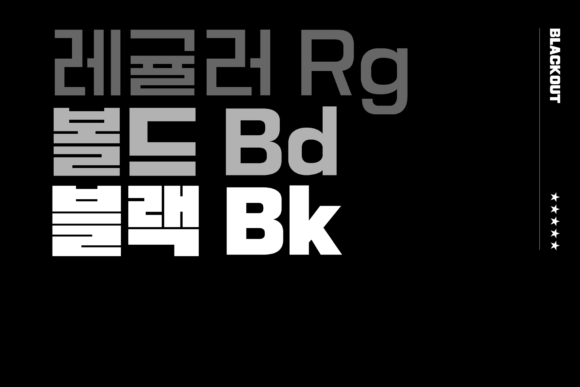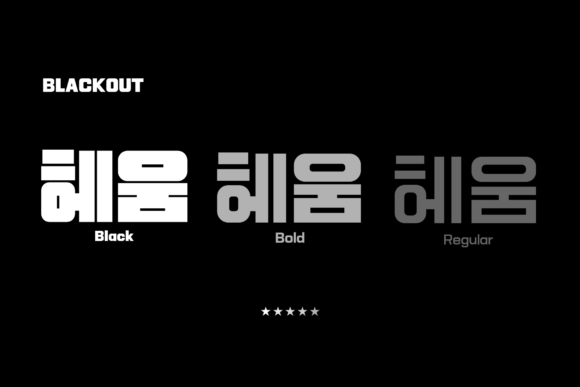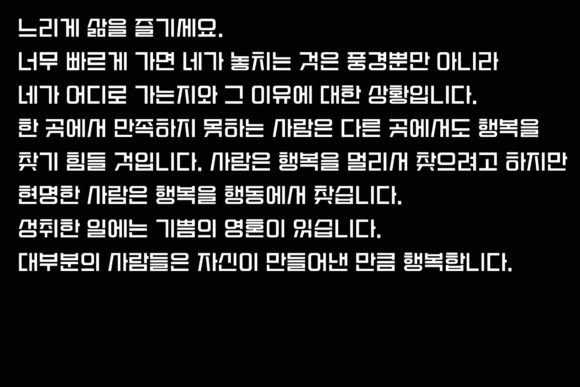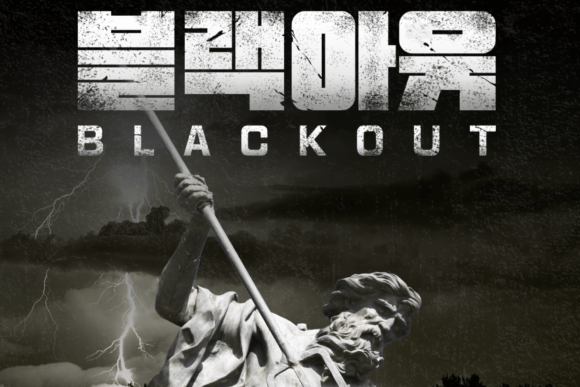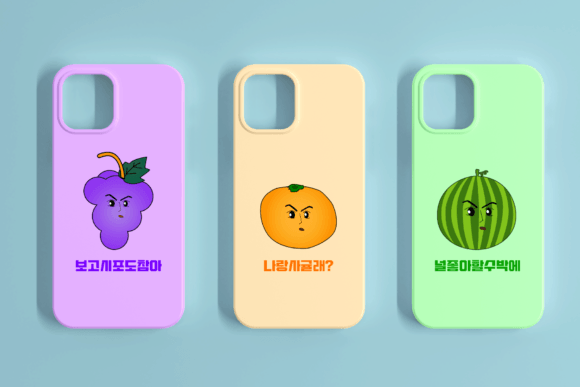
Introducing Blackout KR Font: A Unique Typeface for Modern Design
In the world of typography, a new font has emerged that’s making waves among designers and crafters alike. Say hello to Blackout KR Font, a typeface that’s perfect for titles and headings. This innovative font is characterized by its distinctive square-like structure, where letters seem to be trapped, with a constant and very narrow inner space. What sets Blackout KR apart is its versatility, comprising three types of family typefaces to increase usability. And the best part? It includes support for the Korean language.
The Design Behind Blackout KR
Blackout KR Font boasts a modern and sleek design that’s ideal for grabbing attention. Its unique feature is the narrow inner space within each letter, creating a sense of uniformity and cohesion. This design element makes it perfect for titles, headings, and any text that needs to stand out. The font’s square-like structure gives it a sturdy and robust feel, making it suitable for a wide range of design applications.
Key Features of Blackout KR Font
- Unique Square-Like Structure: The font’s distinctive design, where letters seem trapped in a square, sets it apart from other typefaces.
- Narrow Inner Space: The constant and very narrow inner space within each letter creates a sense of uniformity and cohesion.
- Three Types of Family Typefaces: Blackout KR includes three types of family typefaces, increasing its usability and versatility.
- Korean Language Support: This font includes support for the Korean language, making it a valuable asset for designers working with multilingual projects.
Usability and Versatility
One of the standout features of Blackout KR Font is its usability and versatility. The inclusion of three types of family typefaces allows designers to experiment with different styles and tones, making it suitable for a wide range of design applications. Whether you’re working on a branding project, a website, or a print design, Blackout KR Font can adapt to your needs.
Applications of Blackout KR Font
So, where can you use Blackout KR Font? The possibilities are endless! Here are a few ideas to get you started:
- Branding and Logo Design: The font’s unique design makes it perfect for creating bold and eye-catching logos.
- Web Design: Use Blackout KR Font to create stunning headings and titles that grab users’ attention.
- Print Design: The font is ideal for print materials such as brochures, posters, and business cards.
- Advertising: Blackout KR Font can help your ads stand out with its bold and modern design.
Blackout KR Font is a game-changer for designers and crafters looking for a unique and versatile typeface. Its distinctive square-like structure, narrow inner space, and support for the Korean language make it an excellent addition to any design project. With its three types of family typefaces, Blackout KR Font offers endless possibilities for creative expression. Try it out today and take your designs to the next level!